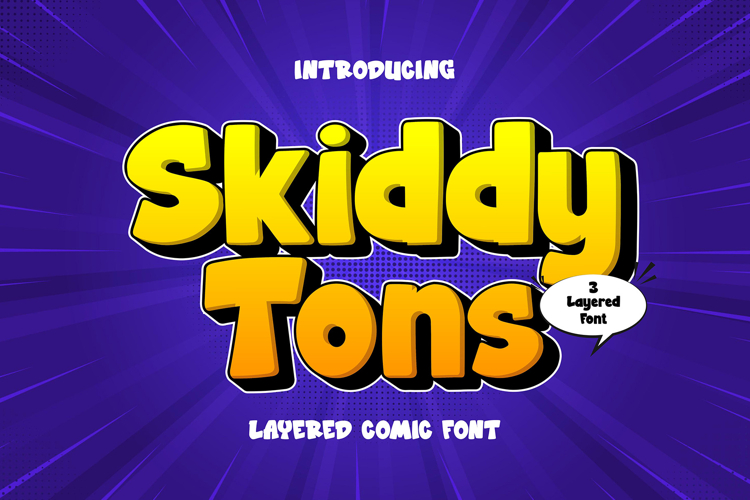
Skiddy Toons - Layered Comic Font
Introducing Skiddy Toons – the Layered Comic Font that brings a vibrant and playful energy to your designs. Perfect for projects that need a fun and dynamic touch, Skiddy Toons offers a versatile and engaging aesthetic that captures attention and adds a whimsical charm.
✨ Vibrant and Playful: Skiddy Toons captivates with its lively and animated letterforms. Each character is crafted to evoke a sense of joy and creativity, making it ideal for designs that need a cheerful and entertaining appeal.
🌟 Layered Versatility: This font features a unique layered design, allowing for creative combinations and colorful effects. Perfect for adding depth and dimension to your projects, Skiddy Toons offers endless possibilities for customization.
🖋️ Perfect for Comic and Kids' Projects: Skiddy Toons is an excellent choice for comic books, children’s books, posters, and educational materials. Its playful and inviting style makes it engaging and appealing to young audiences, bringing a sense of fun to any project.
🎨 Dynamic and Eye-Catching: The dynamic nature of Skiddy Toons adds a captivating touch to your designs. Its eye-catching style ensures your text stands out, making it perfect for branding, packaging, and promotional materials.
Elevate your designs with Skiddy Toons – the Layered Comic Font that combines vibrancy, versatility, and charm. Ideal for making a delightful visual impact, Skiddy Toons is your go-to font for adding a fun and dynamic touch to any project.